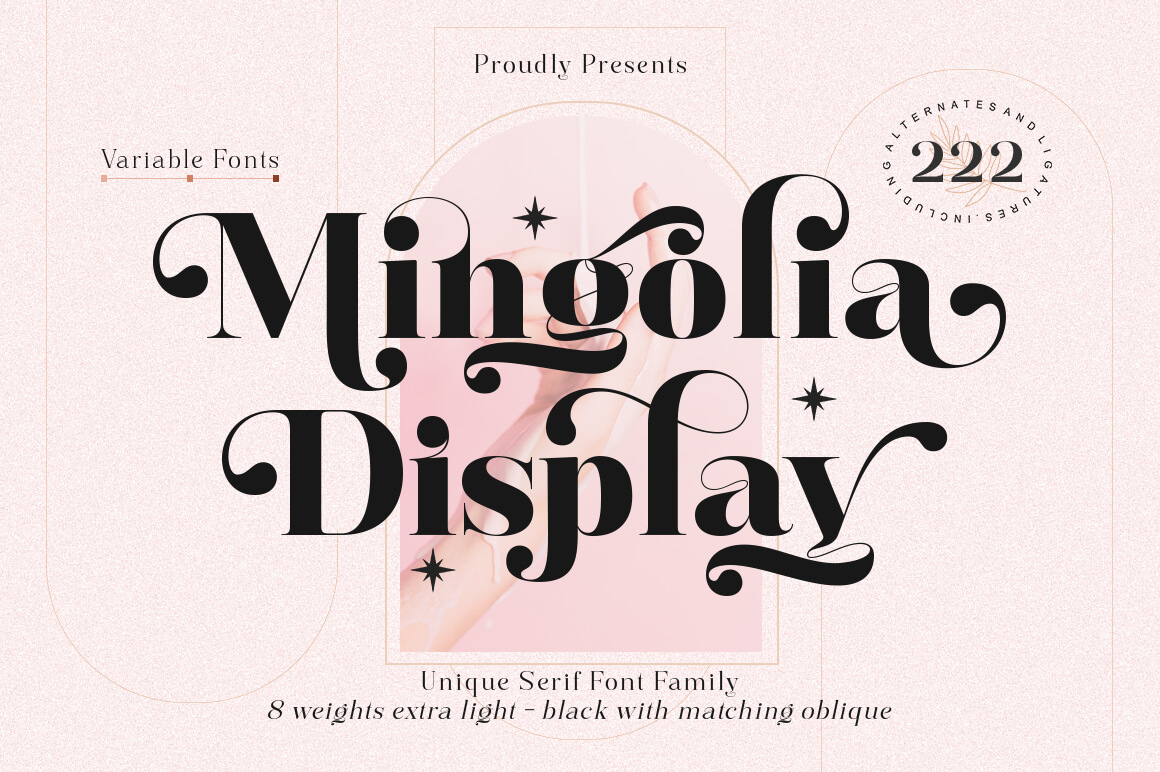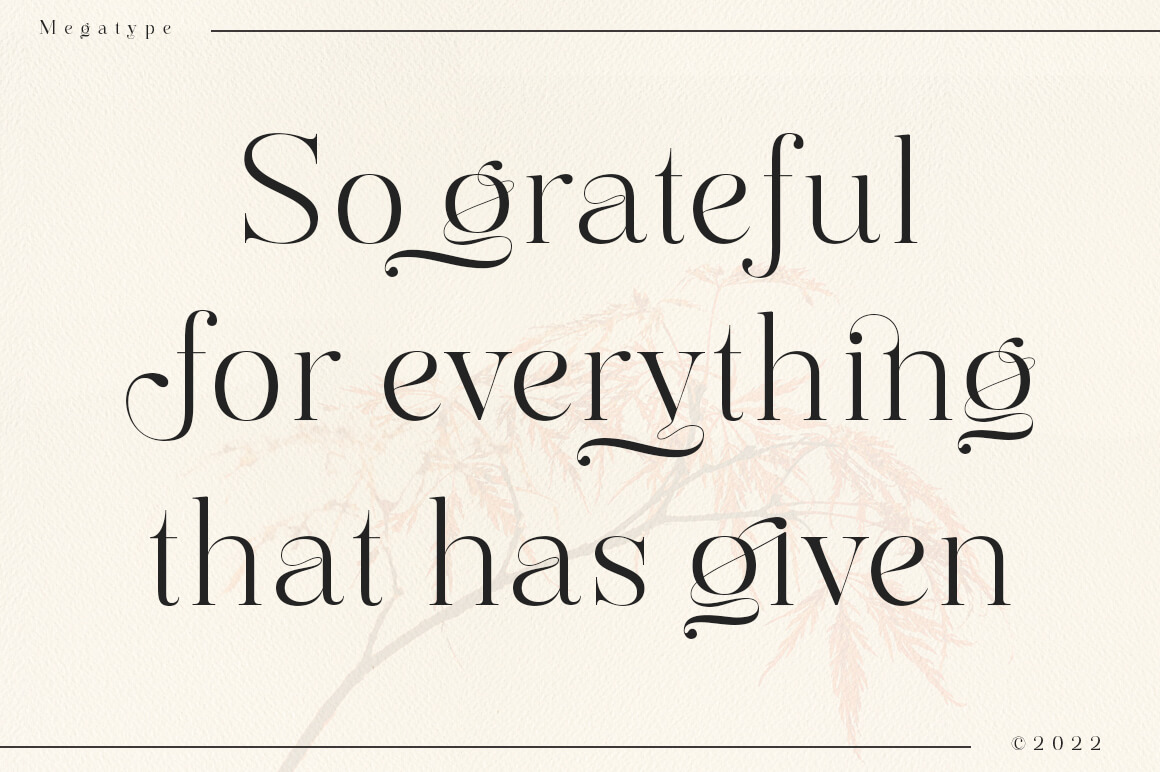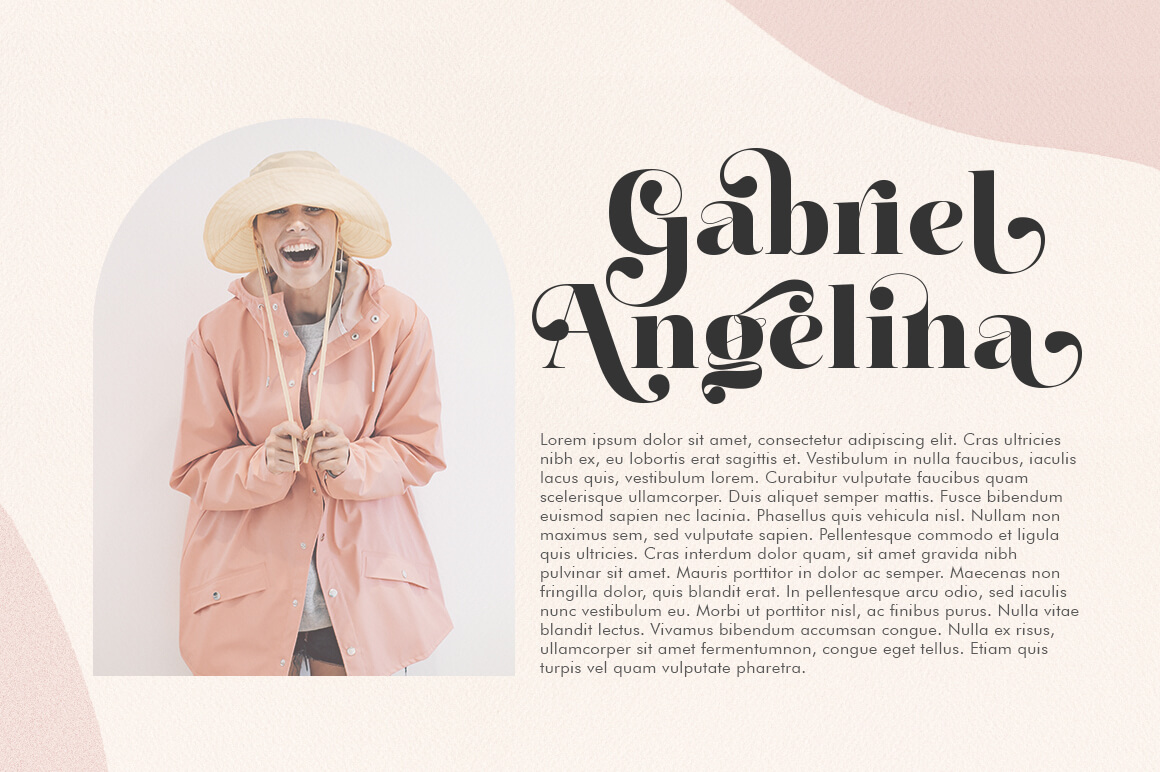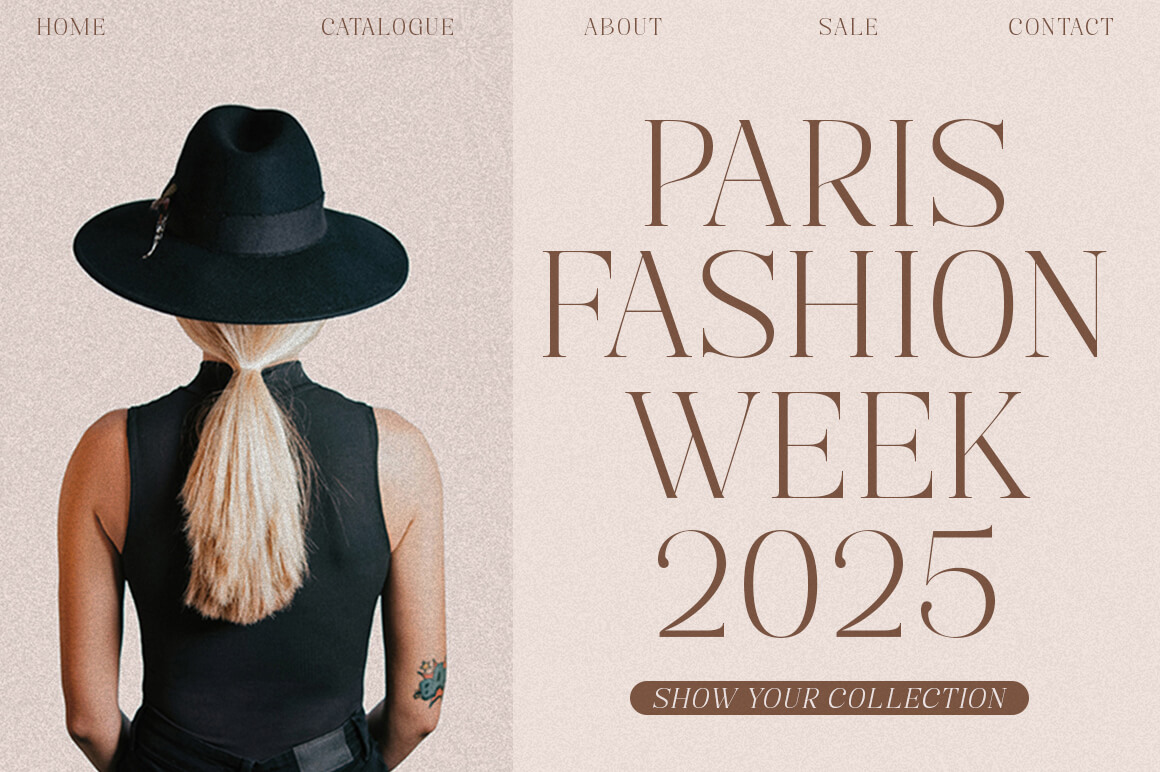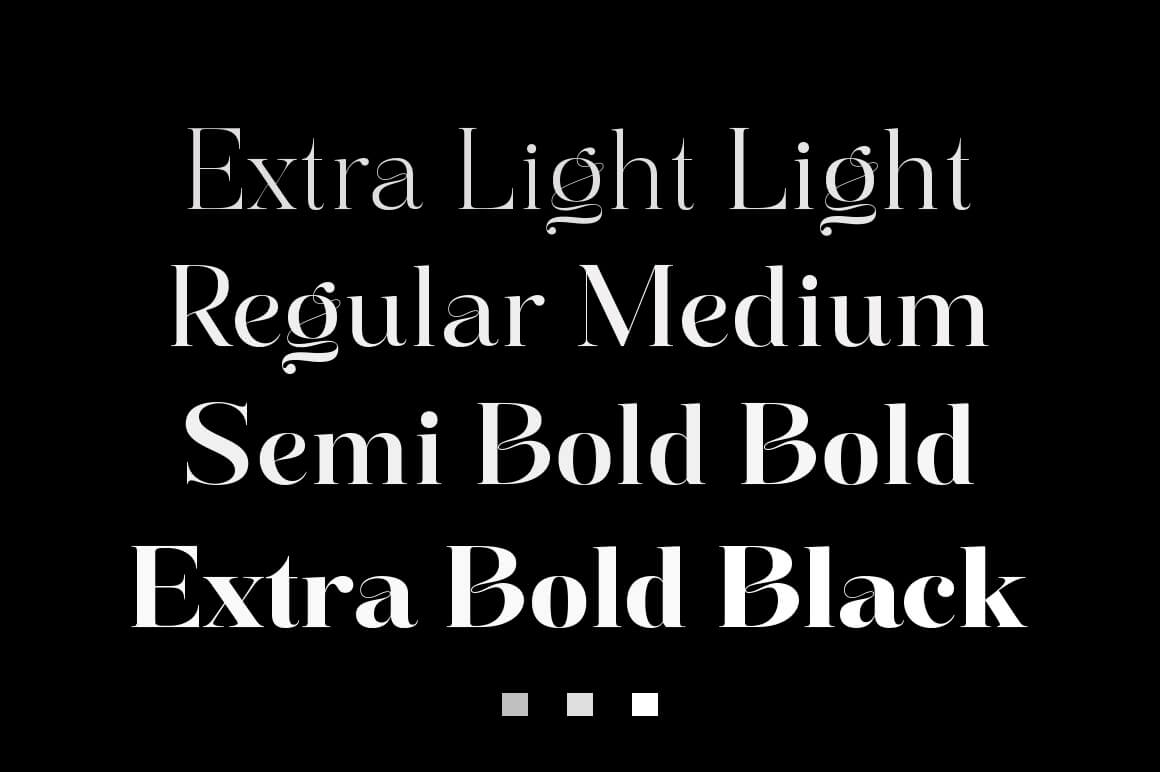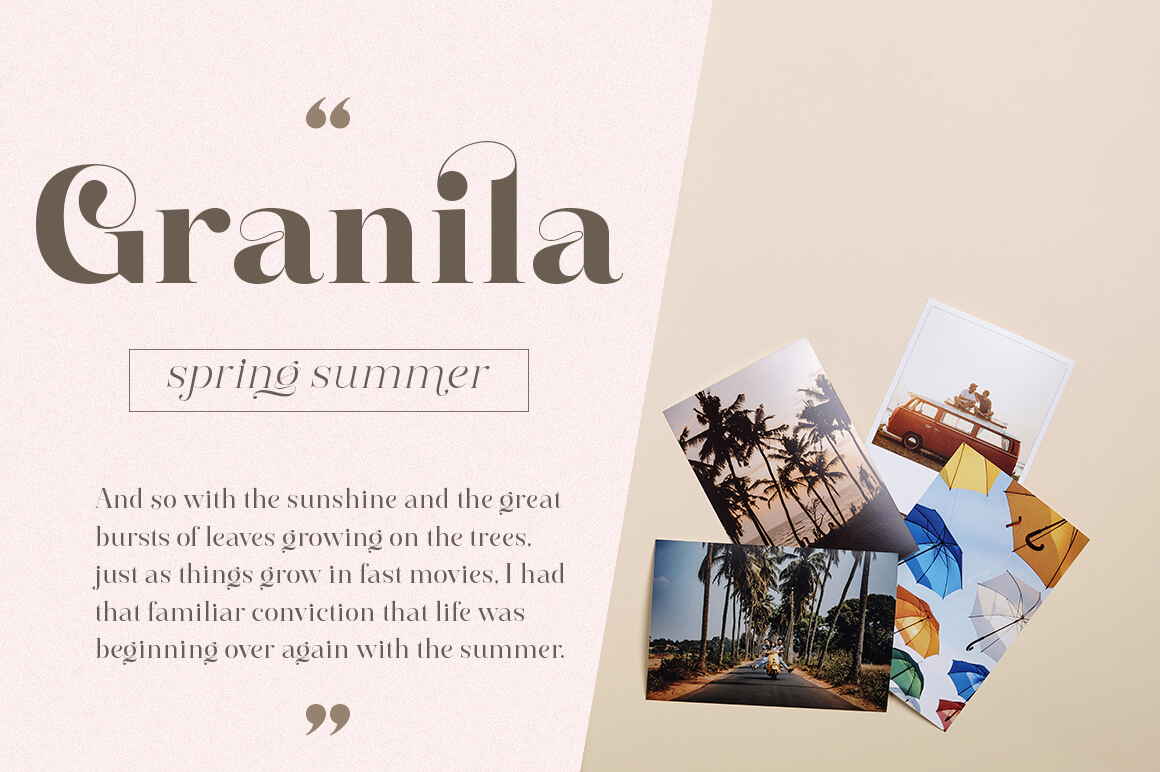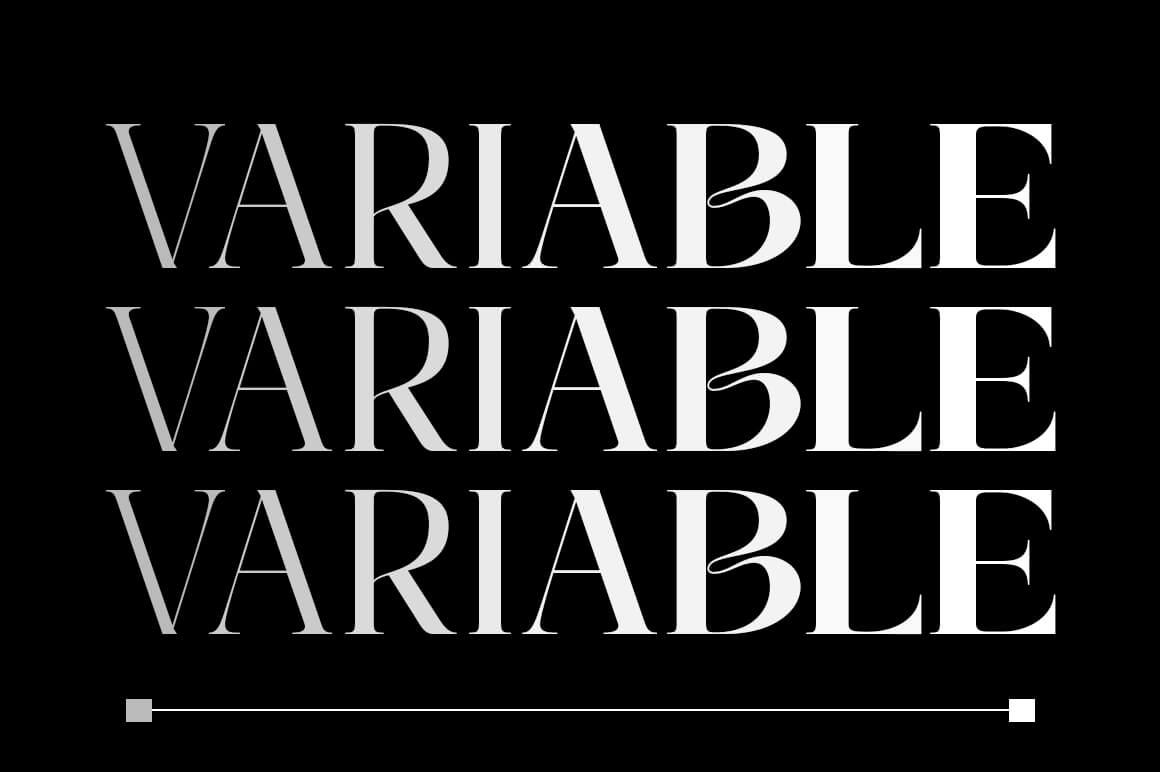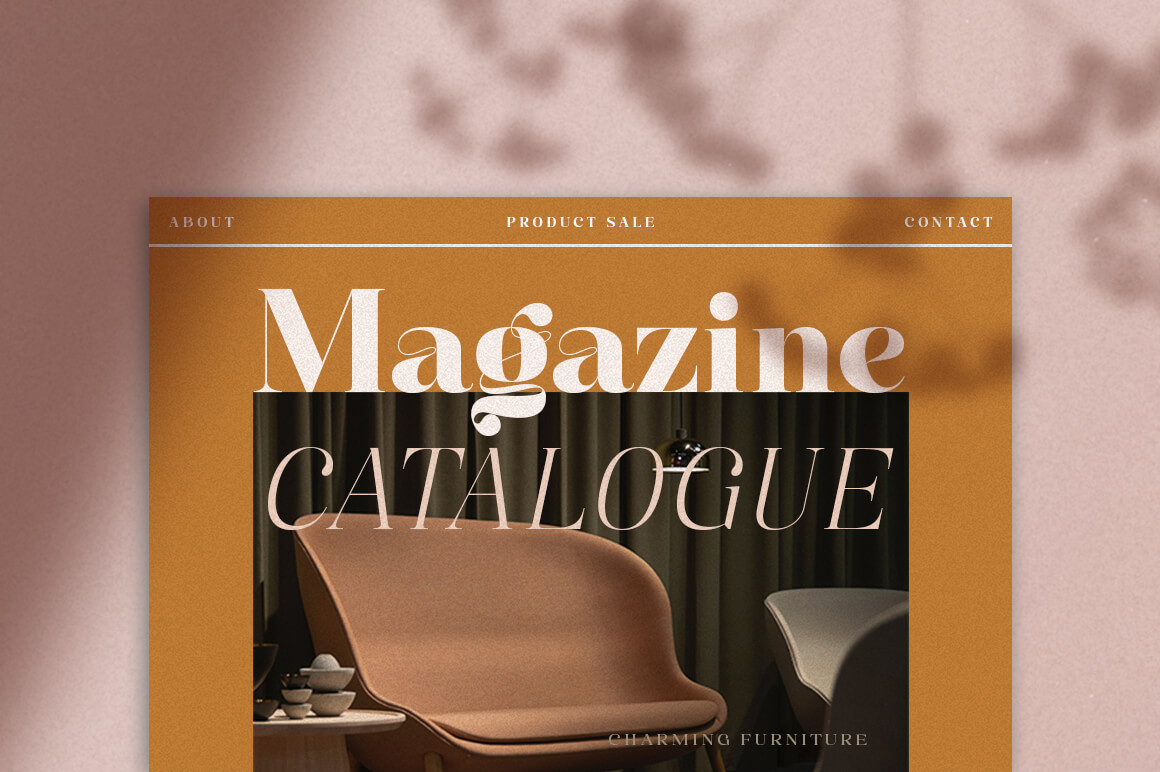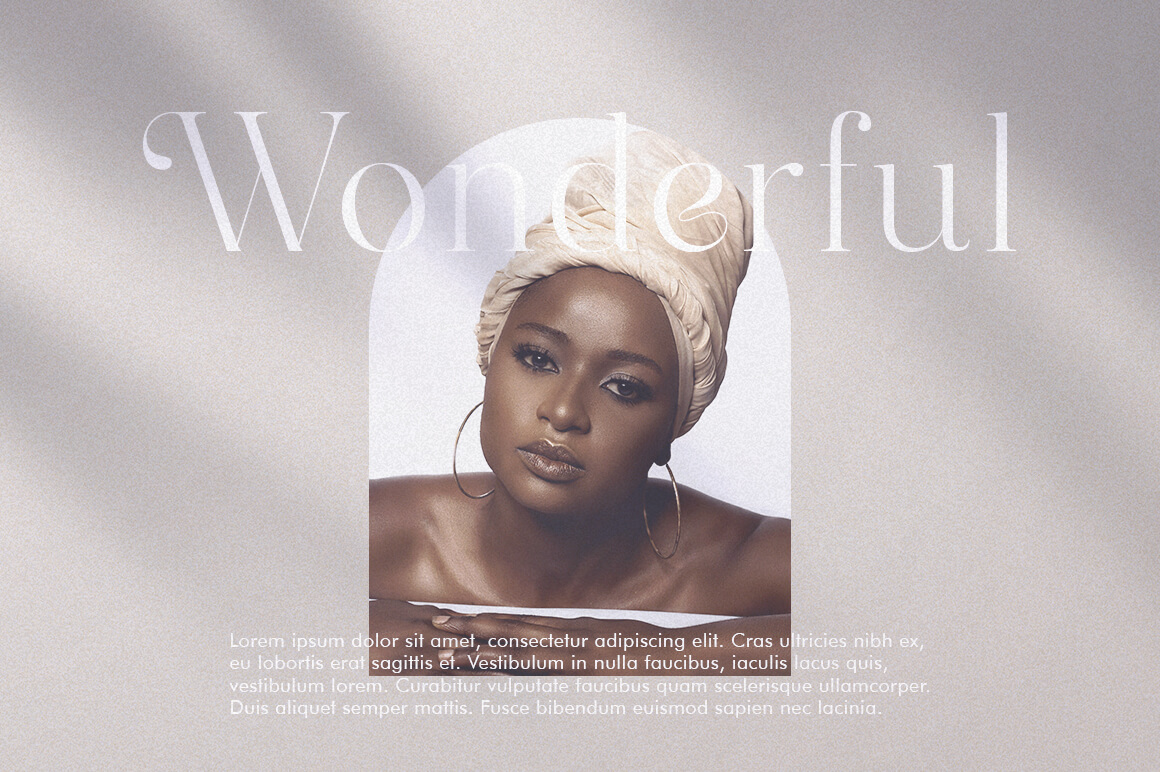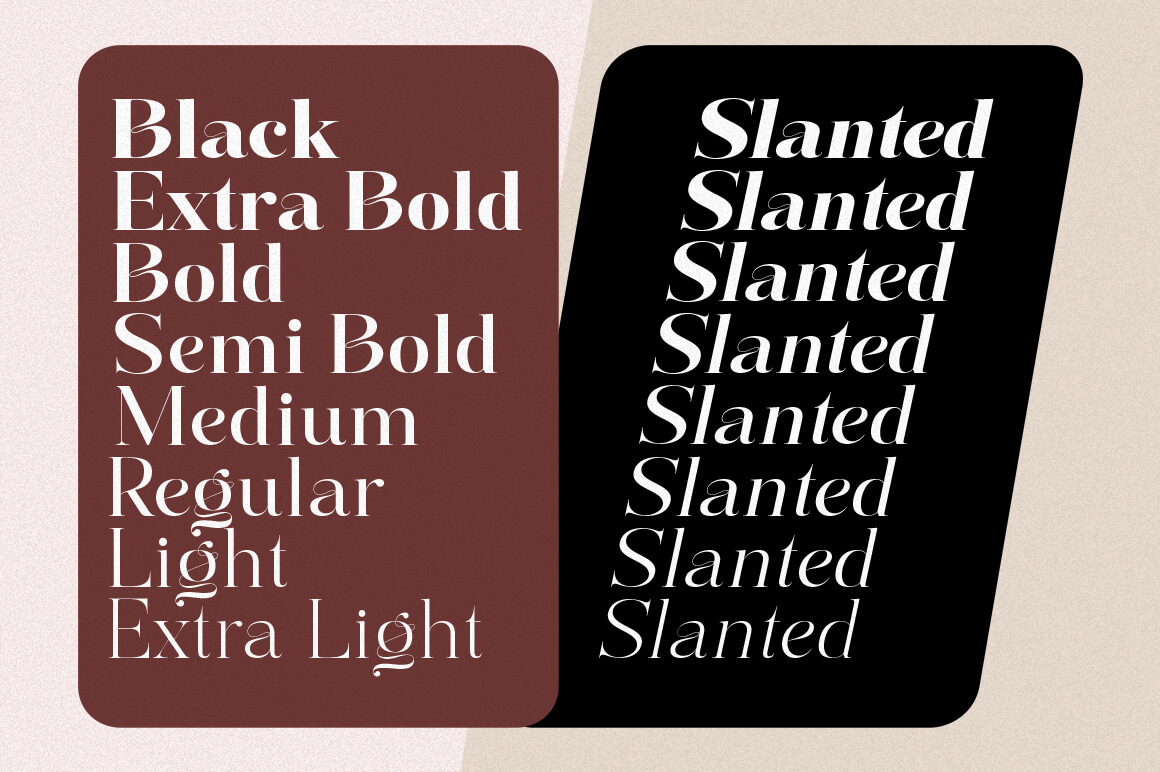
Mingolia Display – A modern serif font family (Variable Font) with a unique and classy style. It looks amazing at display size and is easy to read in text size.
Mingolia Display comes in 8 weights from Extra Light to Black with matching Oblique. Mingolia Display also offers many alternative fonts and beautiful ligatures, which allow you to replace standard fonts with alternative fonts/ligatures to make your designs more unique and attractive.
Mingolia Display is a display font created primarily for headlines, titles and other short text and is perfect for advertising, vintage mood boards, branding, logo type, packaging, titles, editorial design, and modern and vintage designs.
Feature
· All Uppercase and Lowercase
· Alternates and Ligatures
· Numbers & Symbols
· Supported Languages
· Substitutes and Binders